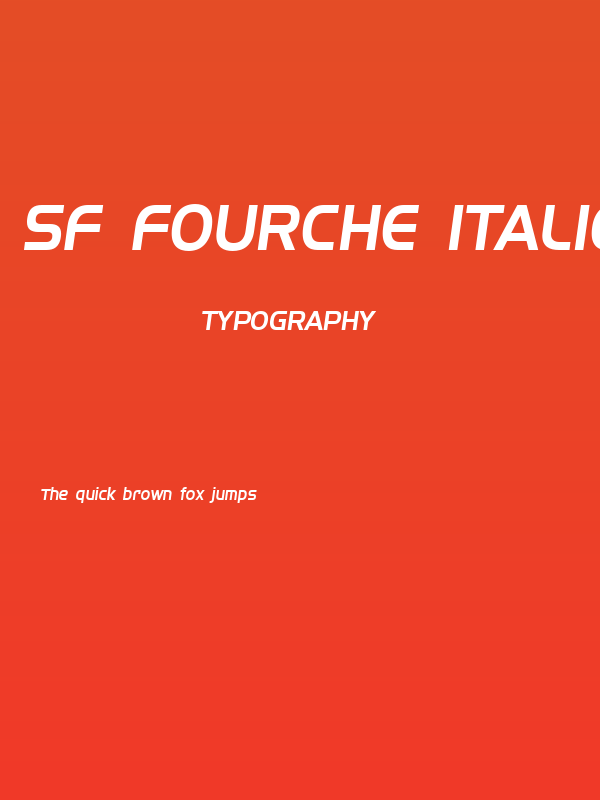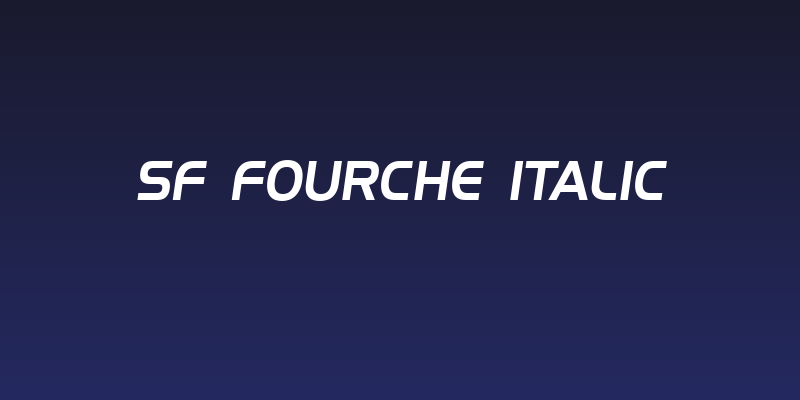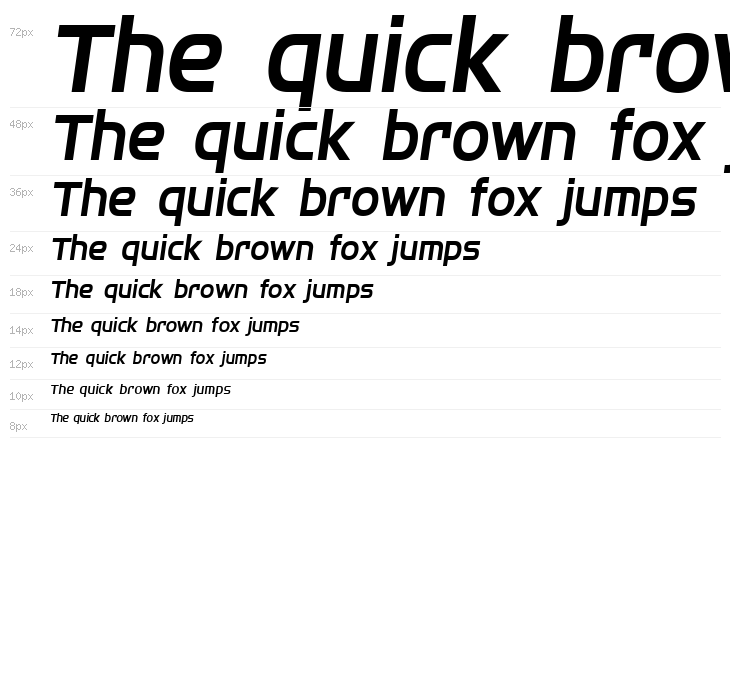
SF Fourche Italic Font
SF Fourche Italic Description
This font features a sleek, modern design with a slight italic slant, giving it a dynamic and forward-moving appearance. The characters are well-balanced with a consistent stroke width, contributing to a clean and professional look. The uppercase letters are bold and commanding, while the lowercase letters maintain a smooth and approachable style. Numbers are clear and easily distinguishable, making them suitable for various applications. The special characters are designed with the same attention to detail, ensuring uniformity across the font. Overall, this typeface is versatile, suitable for both digital and print media, and can be used to convey a sense of modernity and sophistication.